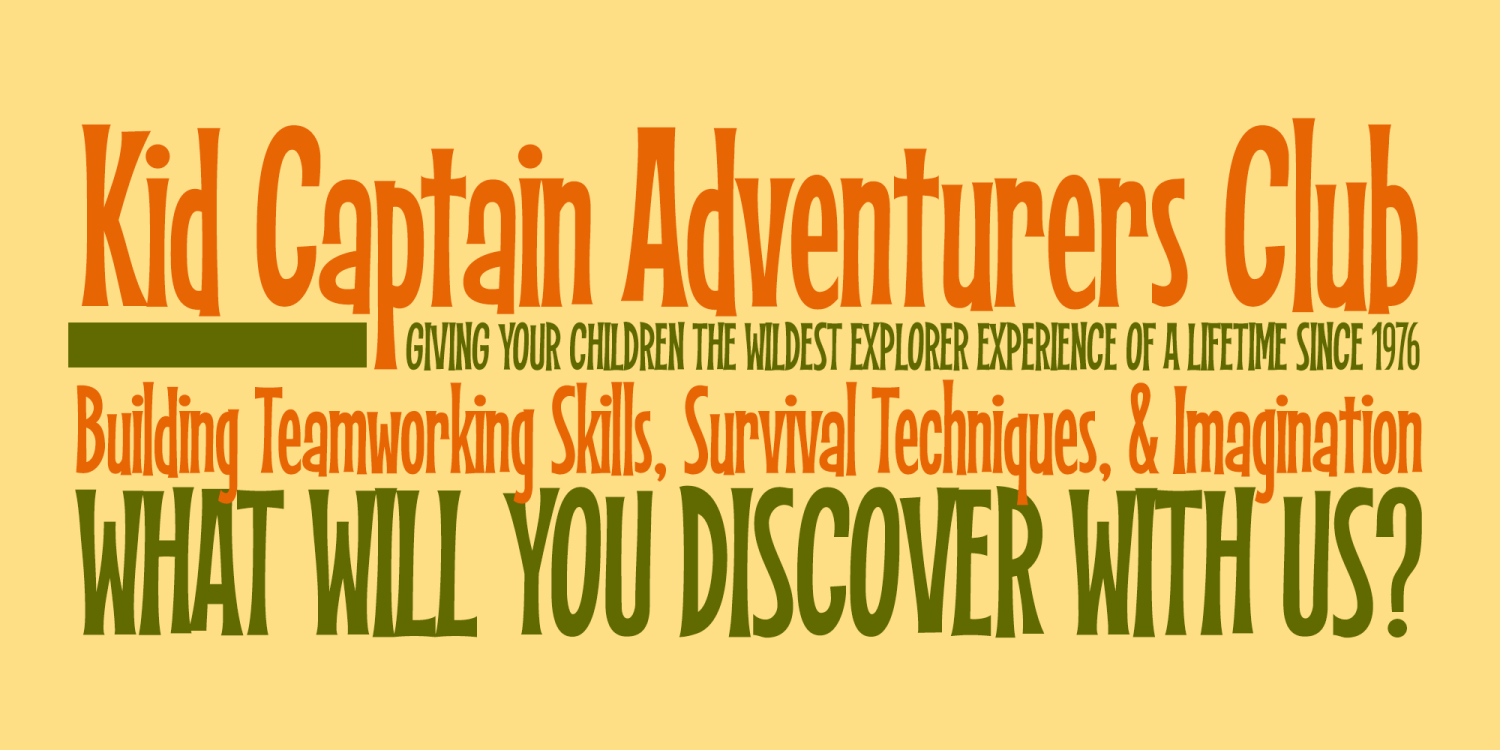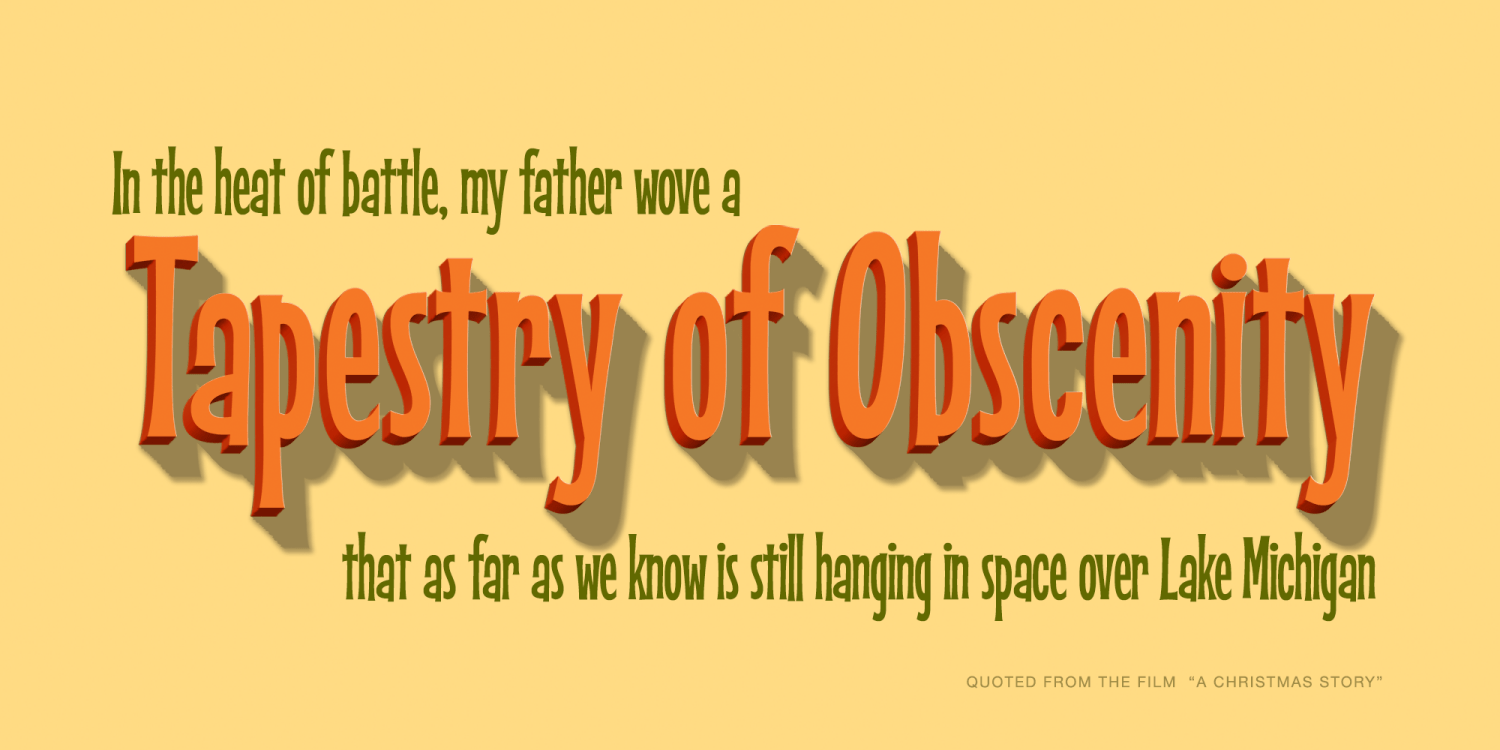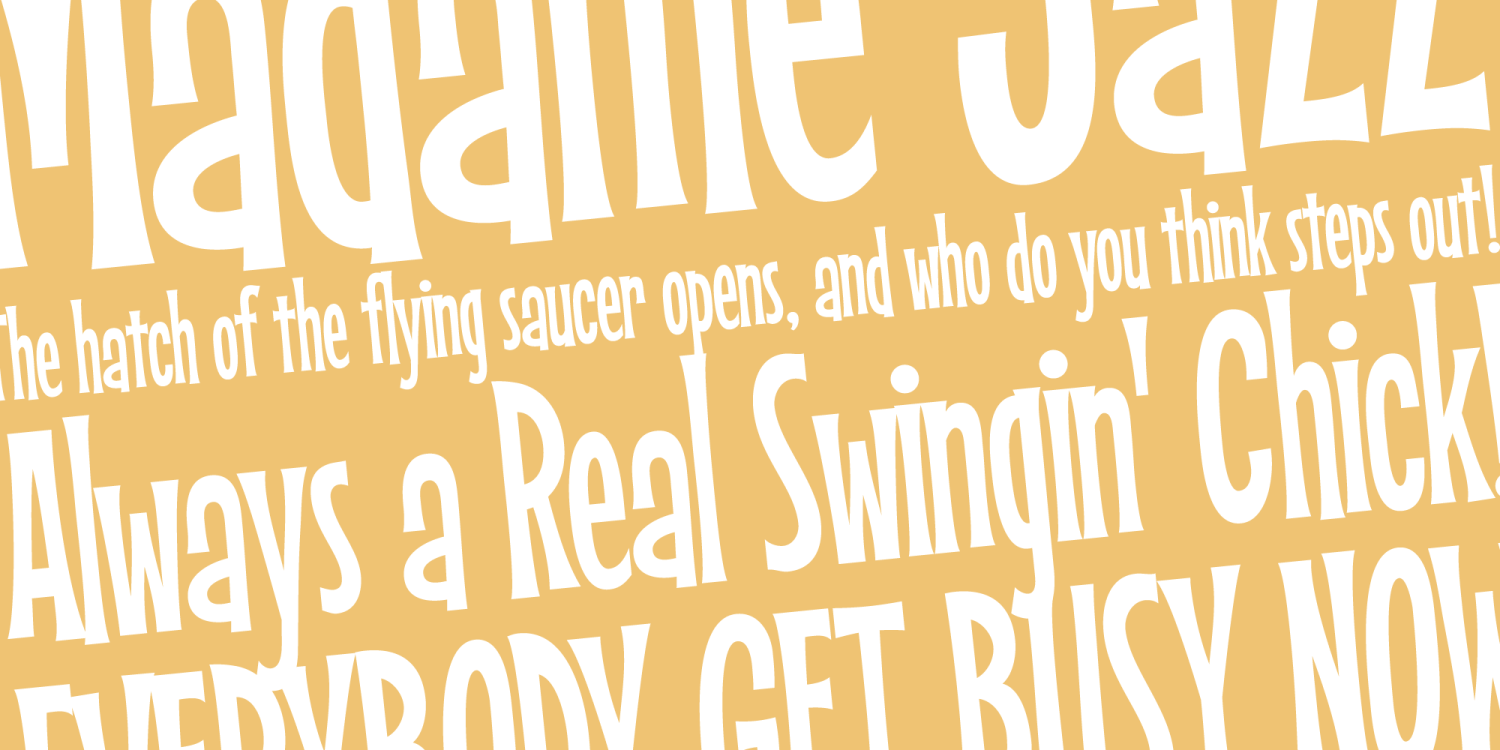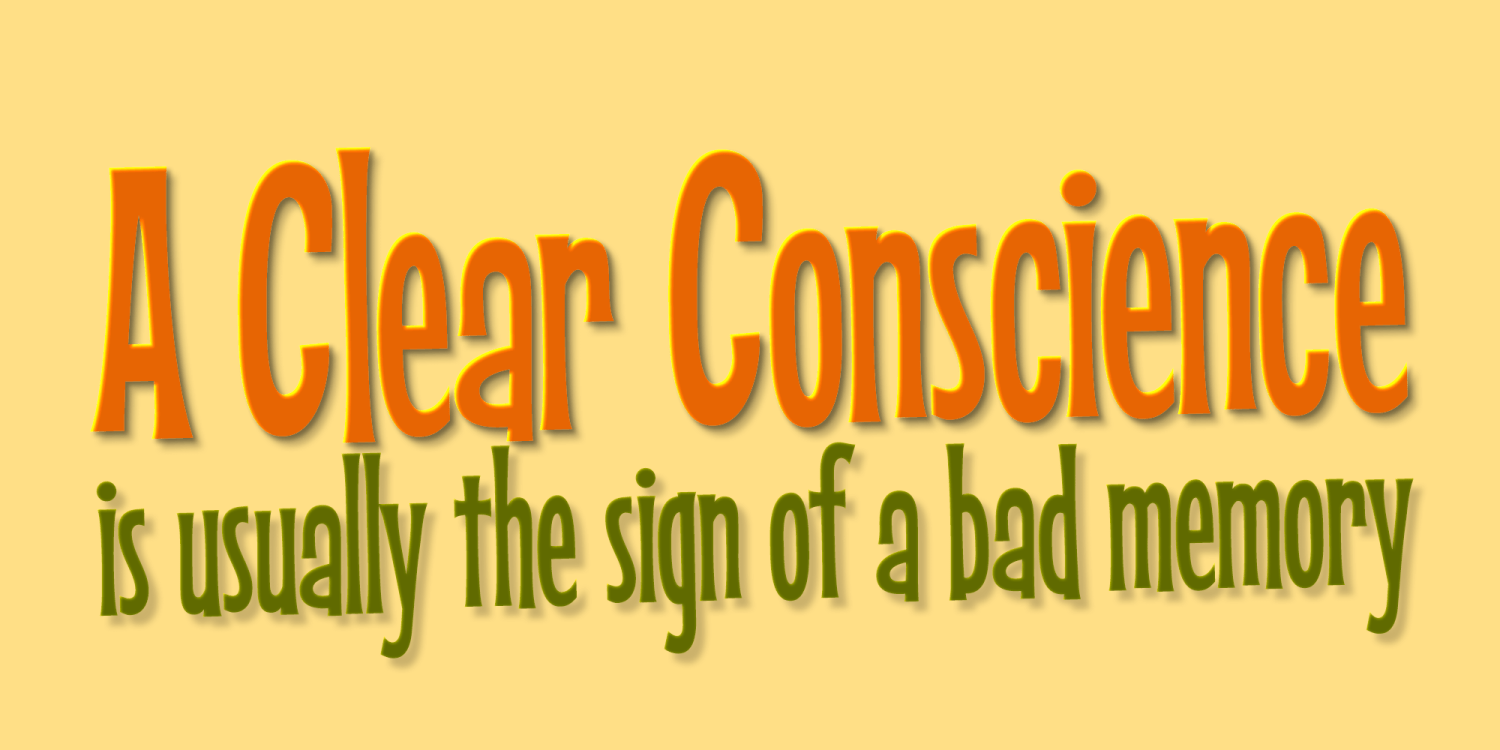
Kid Captain PB
Font Family by Pink Broccoli
An wiley & slim typeface inspired by a 1958 Dell Comic, "The Captain and the Kids" featuring the Katzenjammer Kids as a spinoff from the original comic which was in turn inspired by the famous children's story from the 1860's, "Max and Moritz". Fun, informal, and retro spunky, all balled up in a single typeface.